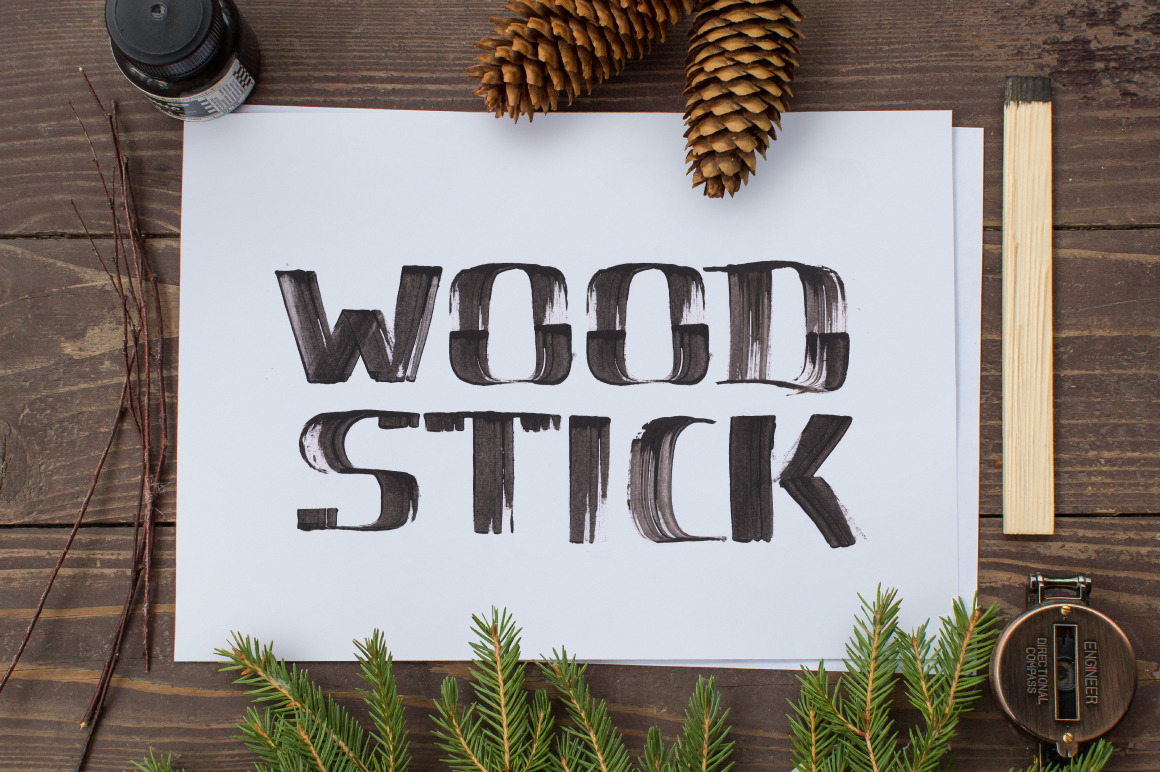
WoodStick Font
Here's my first font. I've been drawing letters for a long time already, but I have never tried to draw fonts before.
One day I got to know about the extension for Adobe Illustrator Fontself Maker. It seemed to me that it was just the thing I was looking for. I started thinking of an idea about making a font.
What if I try drawing letters with a stick? No problem, I took a knife and carved a writing tool. It was very fascinating!
Then I used Fontself Maker and put the font together. It includes only capital letters, numbers and special symbols for the time being. But my first font has already been created and I'm very glad to it!
- only capital letters
- numbers
- special symbols